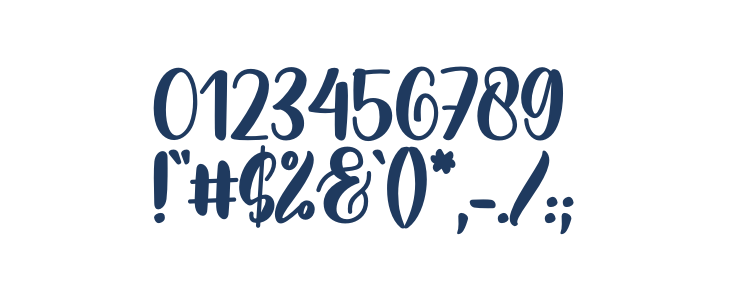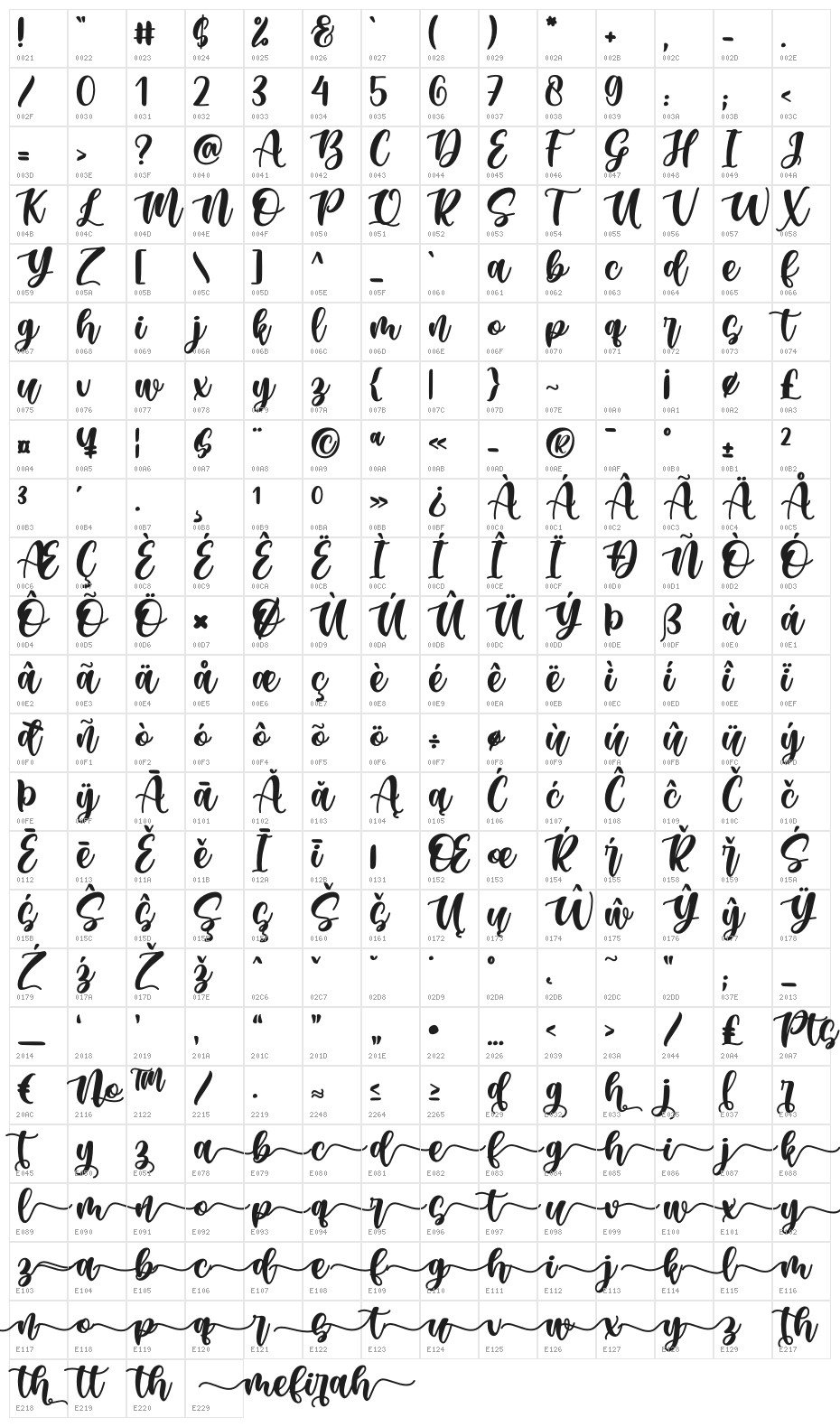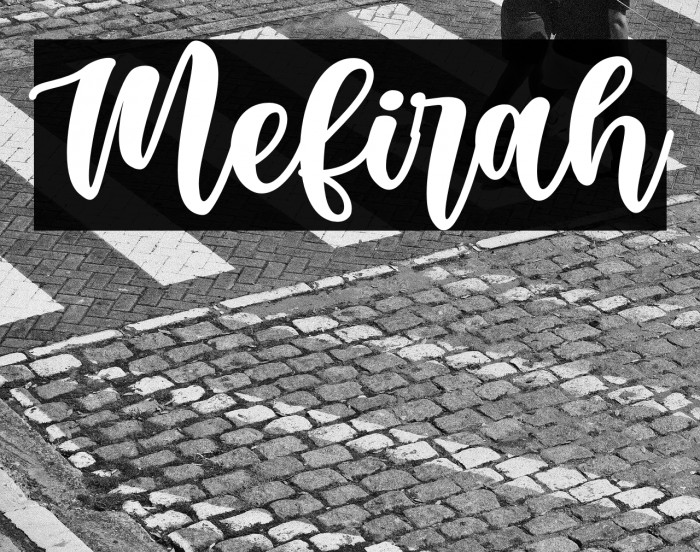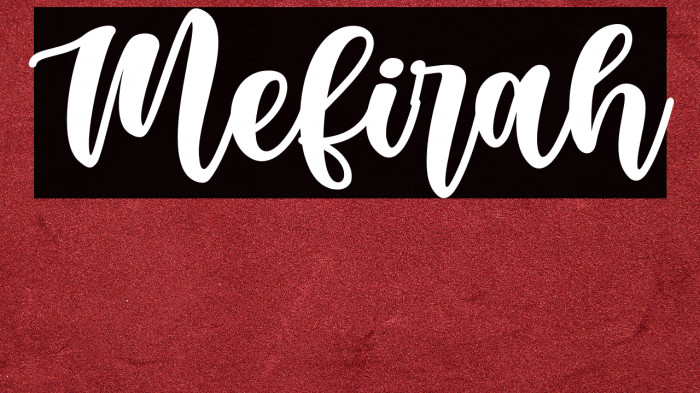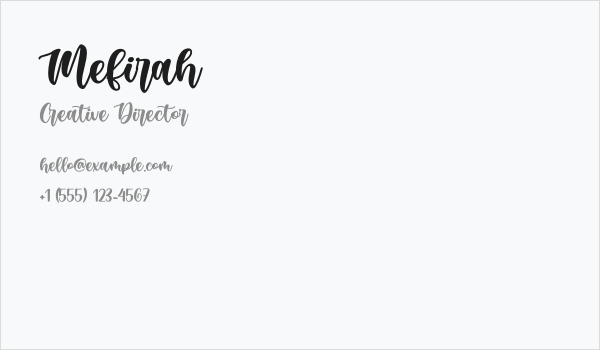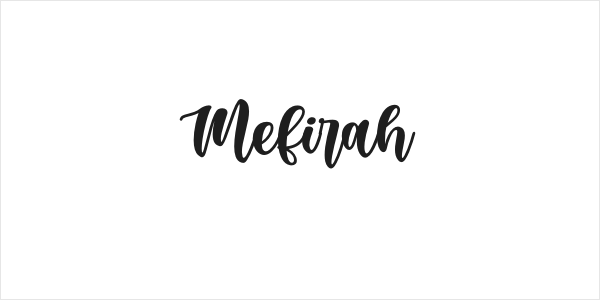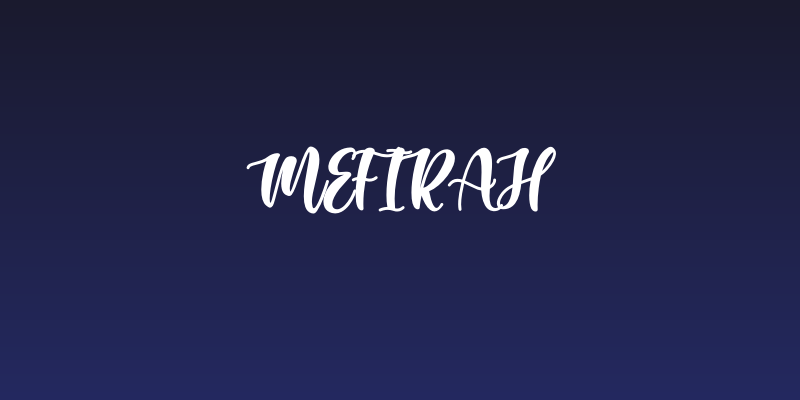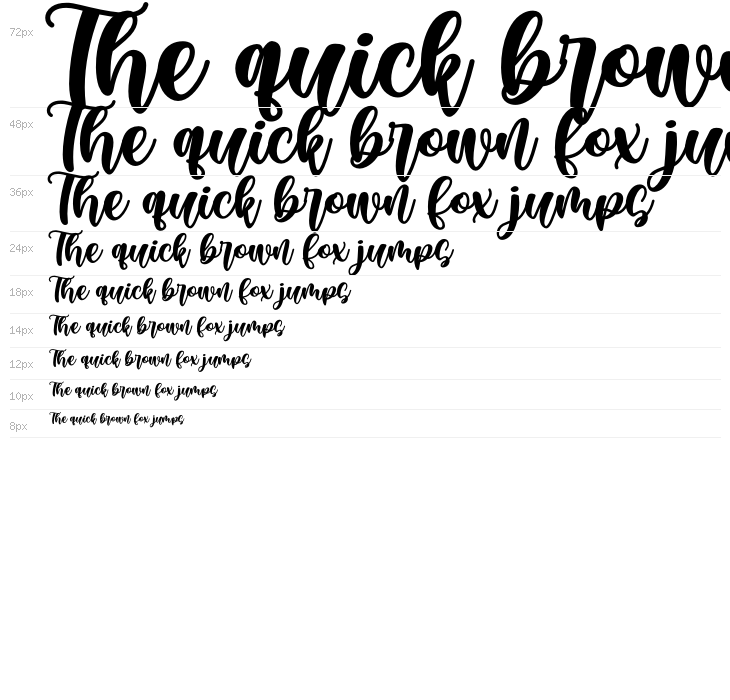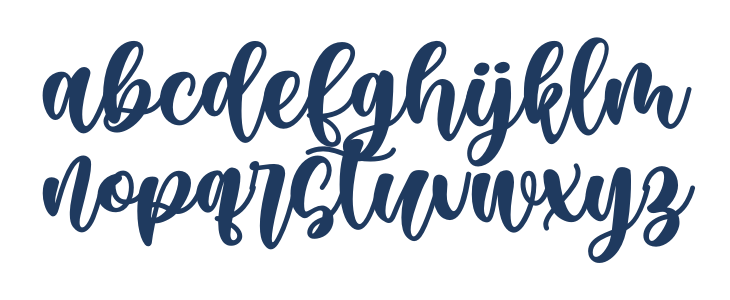
Mefirah Font
Mefirah Description
This font features a bold and expressive script style with a flowing, handwritten appearance. The characters are connected, giving a sense of continuity and elegance. The uppercase letters are slightly larger and more ornate, while the lowercase letters maintain a consistent flow. The numbers are bold and match the overall style, making them stand out. Special characters are integrated seamlessly, maintaining the decorative and artistic feel. The font's thick strokes and smooth curves make it ideal for creating a dynamic and engaging visual impact.